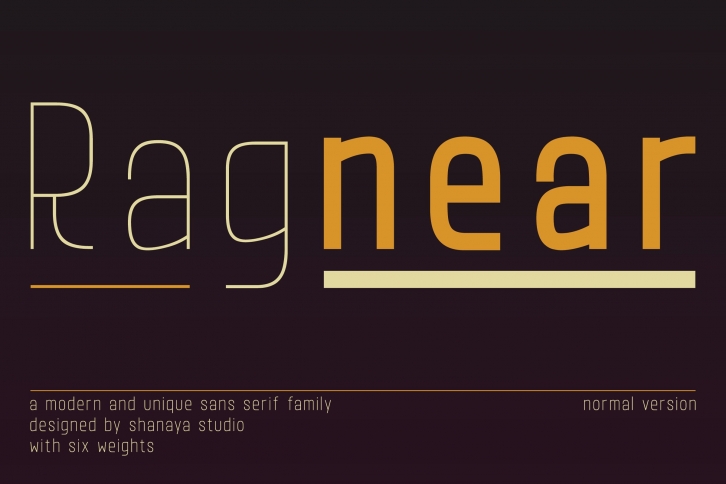
Ragnear Normal Sans Serif is a beautiful font that was designed by Shanaya. It's a great choice for designers and creatives who need such a font. It was released on March 3, 2022 and the file size is 4.9 MB. Ragnear Normal Sans Serif may give a more youthful, expressive and casual look to your project. It is a very beautiful, refined, elegant, and high-quality font.